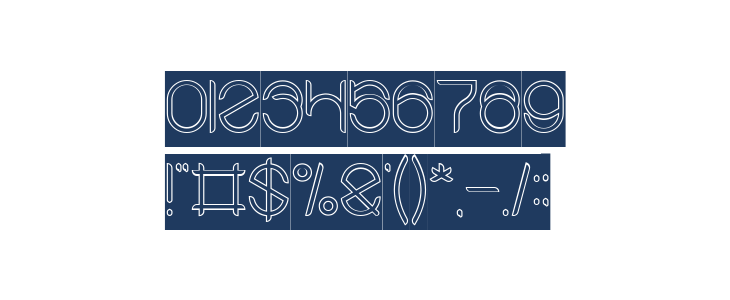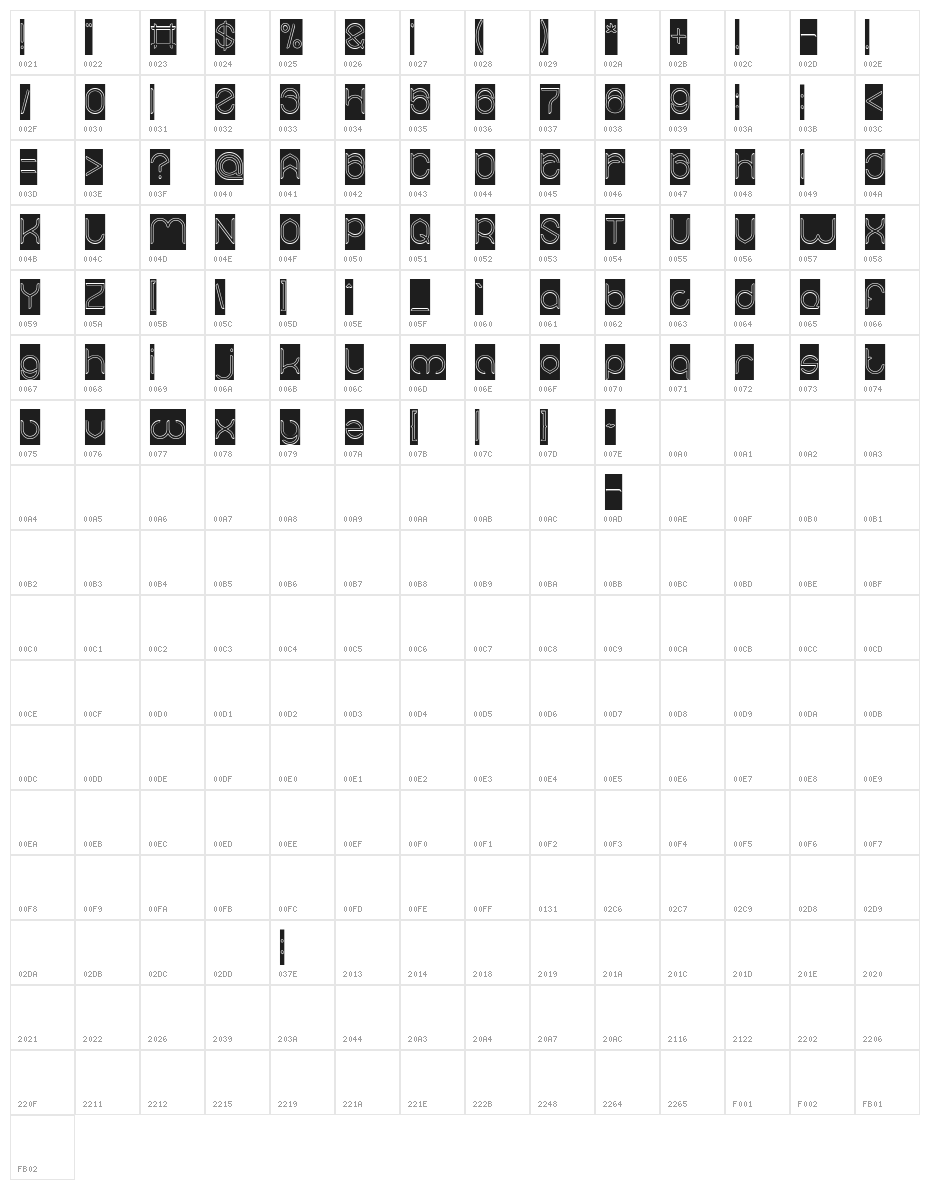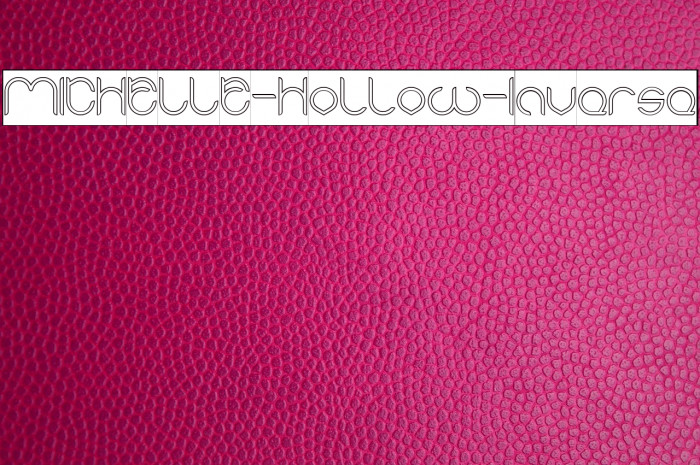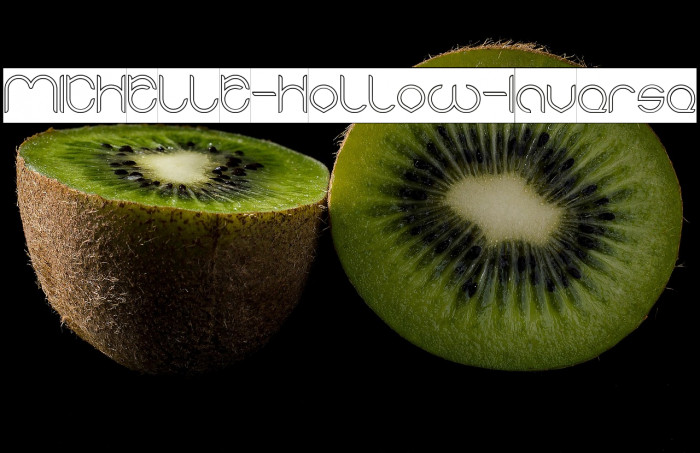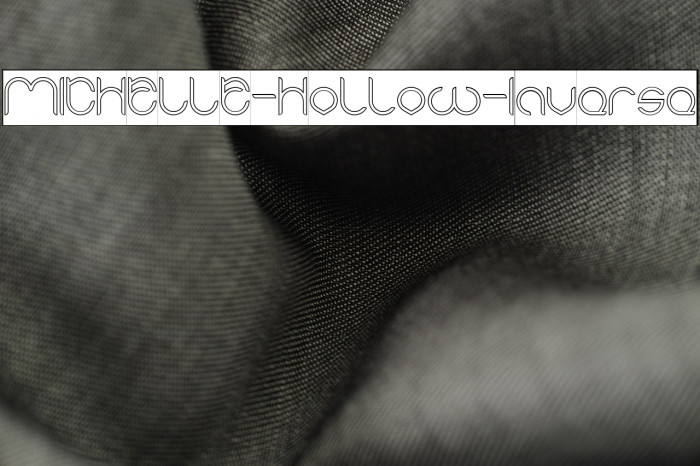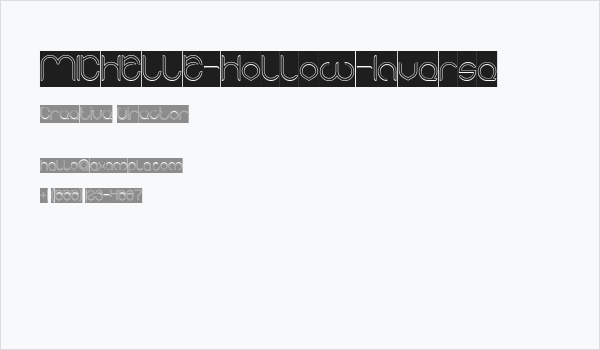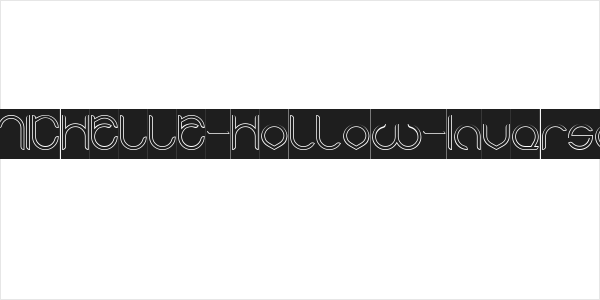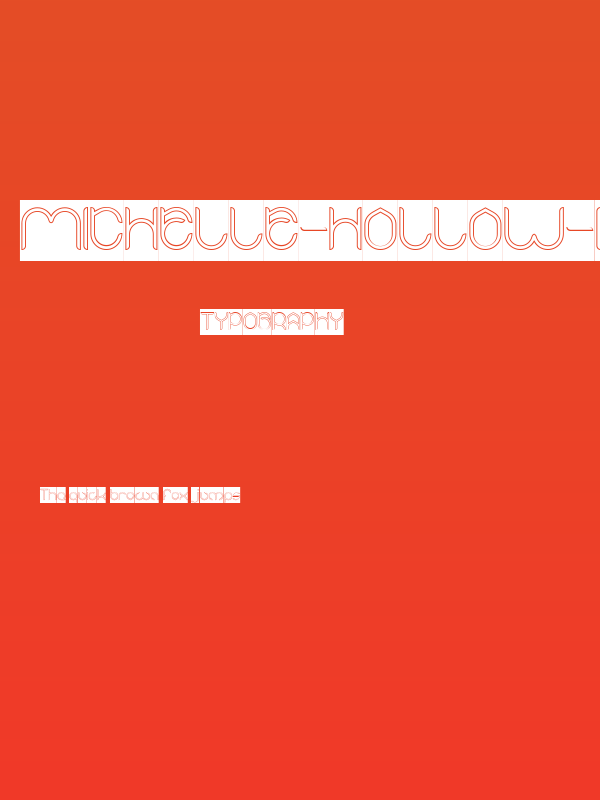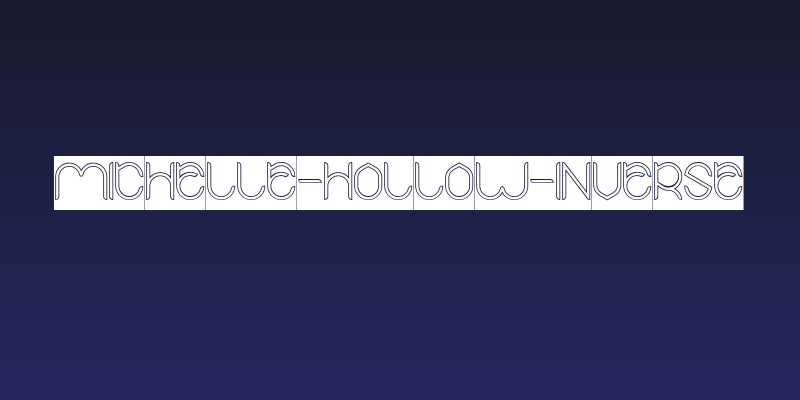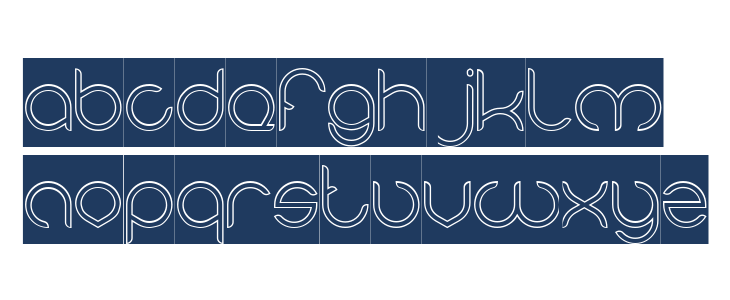
MICHELLE-Hollow-Inverse Font
MICHELLE-Hollow-Inverse Description
This font features a unique hollow design with an inverse style, where the strokes are outlined, creating a modern and futuristic appearance. The characters are constructed with clean, continuous lines that form geometric shapes, giving it a sleek and minimalistic look. The uppercase and lowercase letters maintain consistent proportions, while the numerals and special characters are designed to complement the overall aesthetic. The font's distinct style makes it stand out, suitable for creative and bold design projects.
| Proposed Projects | Ideal for futuristic branding, tech-related designs, modern posters, and digital media. |